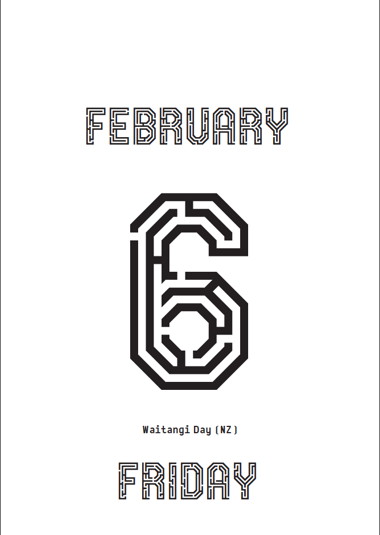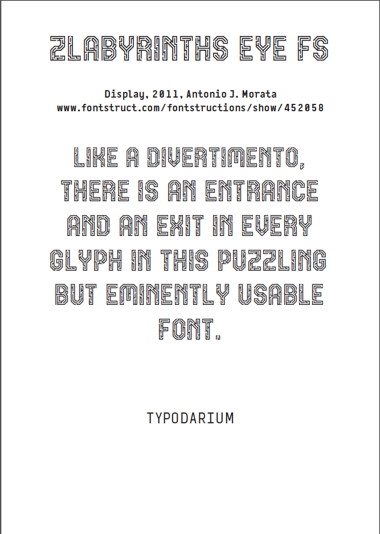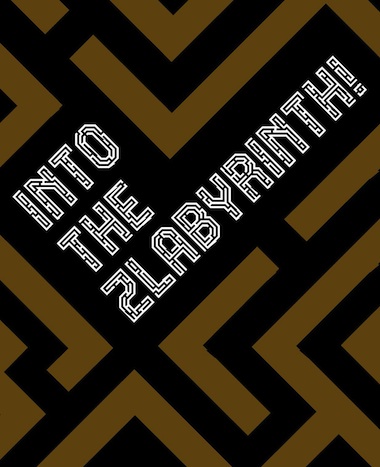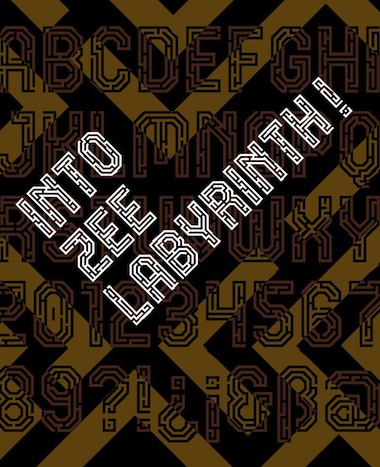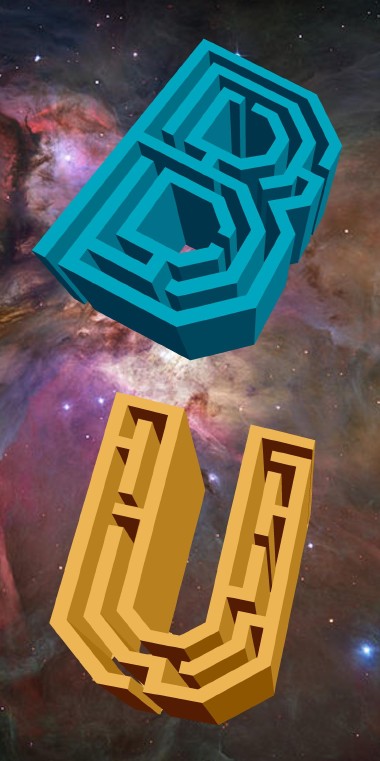
Do you want to solve the mazes? Each glyph has a different one. The LC is in the kitchen. Enjoy with the font, this my only desire.
I've seen something like this, but I don't remember what it was called. Maybe "Mazey". Whatever, great font, 13.7/10.
@BanjoZebra: Thanks for your feedback. I do not know the labyrinth type font you said me; if you get know the entire name, tell me it, please. Construct a maze font with FS is so obvious, surely there must be many others here. I do not want no medals on my chest doing this. I take FS to make this font like as a challenge. I work currently at an elementary school and thought it might be funny for the young children have new items to learn the alphabet. And also this font makes me smile.And besides all this, each of the glyphs are real labyrinths, with only one entrance and one exit.
Just found it - indeed, it was called Mazey.
This has endless possible variations. Excellent work.
@BanjoZebra: What speed! A lot of thanks to locate the font. It is true that both IIdaddy and I, we start with a similar idea, but IMHO I think the results are very different. My font is usable in more traditional and large texts. Convergent thinking again at FS. See you.
@djnippa: Thanks a lot, maestro. The font can also seem like a bit scratched or grunge, if you look it at small sizes. But first was created for the joy.
Very cool, indeed. The bonus of having a maze in each letter results in endless joy. Woot, elmoyenique. :-)
Very cool...love the @ and &.
Wow! You're really giving "Mazey" a run for its money!
@aphoria: Thanks, maestro. Each glyph drawn by me is a maze that I must cross. I get into it and then I have to go through the guts of it to know it, and leave it in the best possible way. This is always a great adventure, glyph to glyph font to font! And that's why I love create fonts and I love FS!
Great sample! I want to read it without the the: “Into zee Labyrinth”...
The font also works in 3D mode...
your font really comes to life when 3D is applied as witnessed in your sample. great job on both.
@fk: Gracias, maestro. I added the LC just now. Accents, diacritical marks and other glyphs coming soon. I hope you like it.
I added accents in the UC and LC and other glyphs. Font running.
yeah! that ideaa was supercool, but the 3D action really kicks butt!